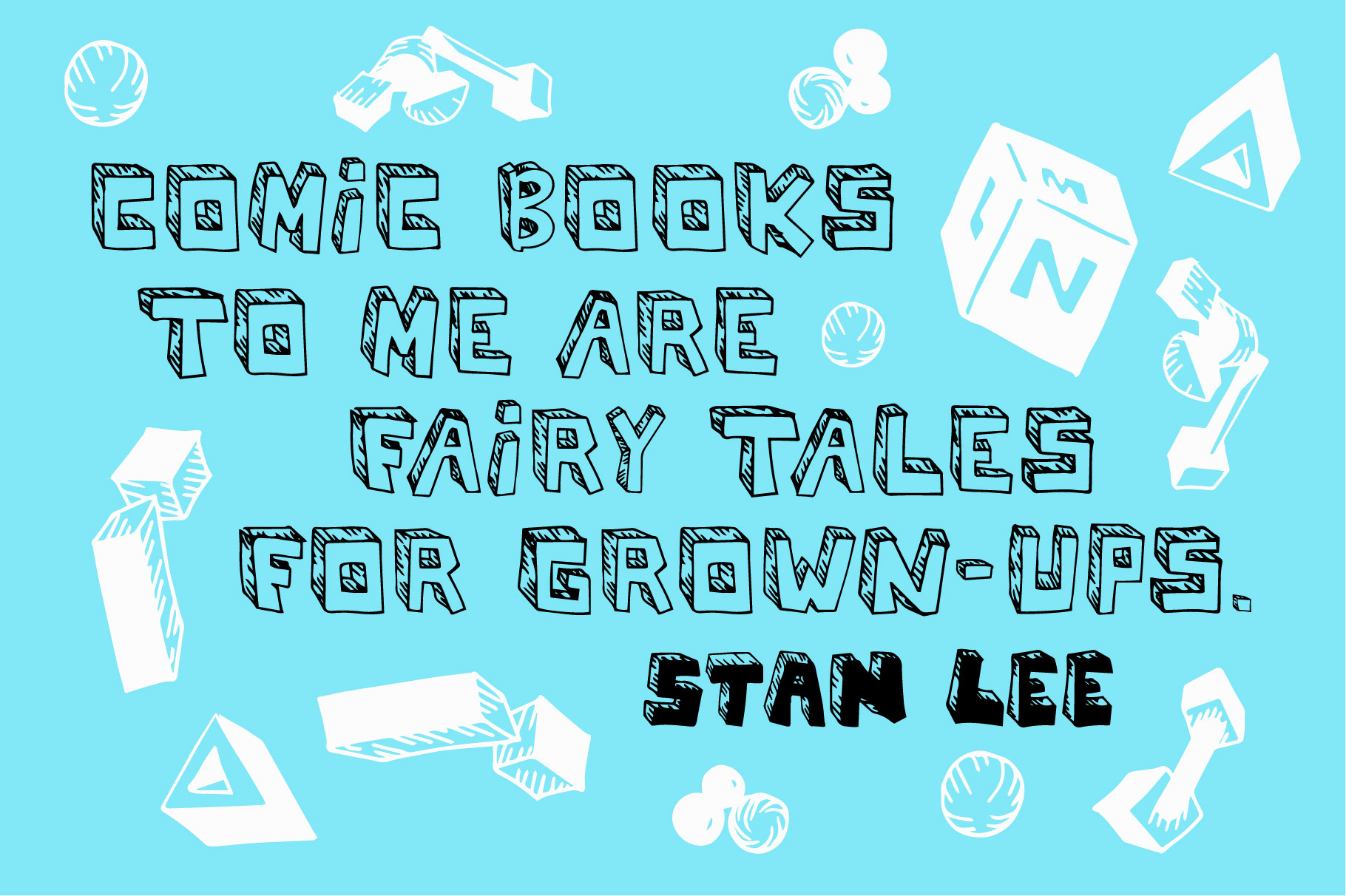
Casual Blocks Font
Casual Blocks is an all-caps, handwritten display font great to be used in all types of editorial designs, comics, magazines, titles, decoration, stationery, etc. Unique and original, it communicates a playful and joyful personality.